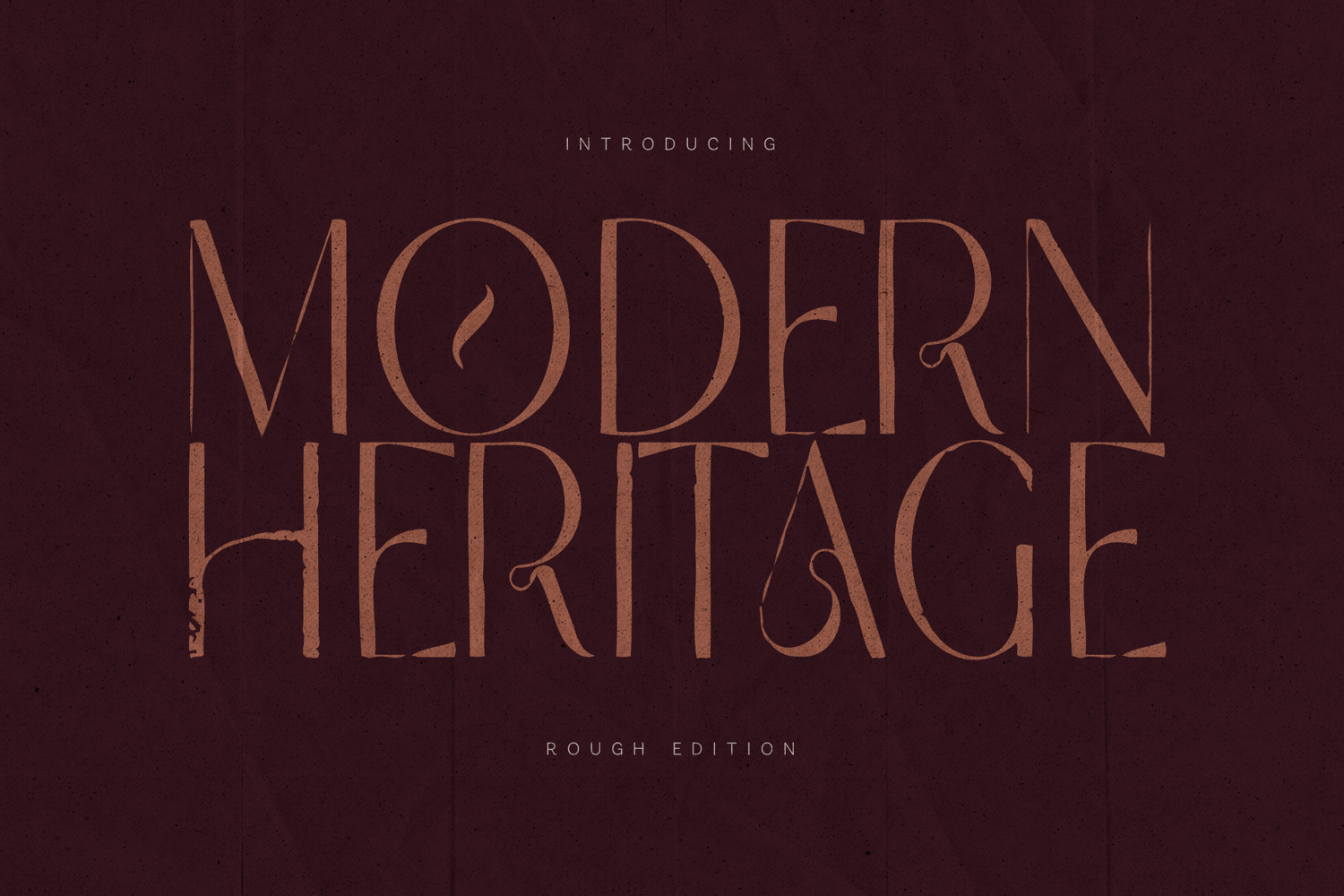
Modern Heritage Elegant Serif Font Family
Modern Heritage is a sophisticated serif font family that blends timeless classical proportions with contemporary refinement. Designed with elegant high-contrast strokes, sculpted serifs, and distinctive organic details, it delivers a luxurious and expressive typographic voice.
This family includes both Delicate and Rough editions, giving you full creative flexibility. The Delicate version offers clean, sharp elegance ideal for upscale branding and editorial layouts, while the Rough edition introduces subtle texture and character — perfect for heritage-inspired designs with warmth and depth.
Modern Heritage features beautifully crafted uppercase and lowercase letters, stylish numerals, rich punctuation, and extensive multilingual support, making it suitable for global projects.
Modern Heritage captures the essence of tradition refined for the present — elegant, expressive, and timeless.